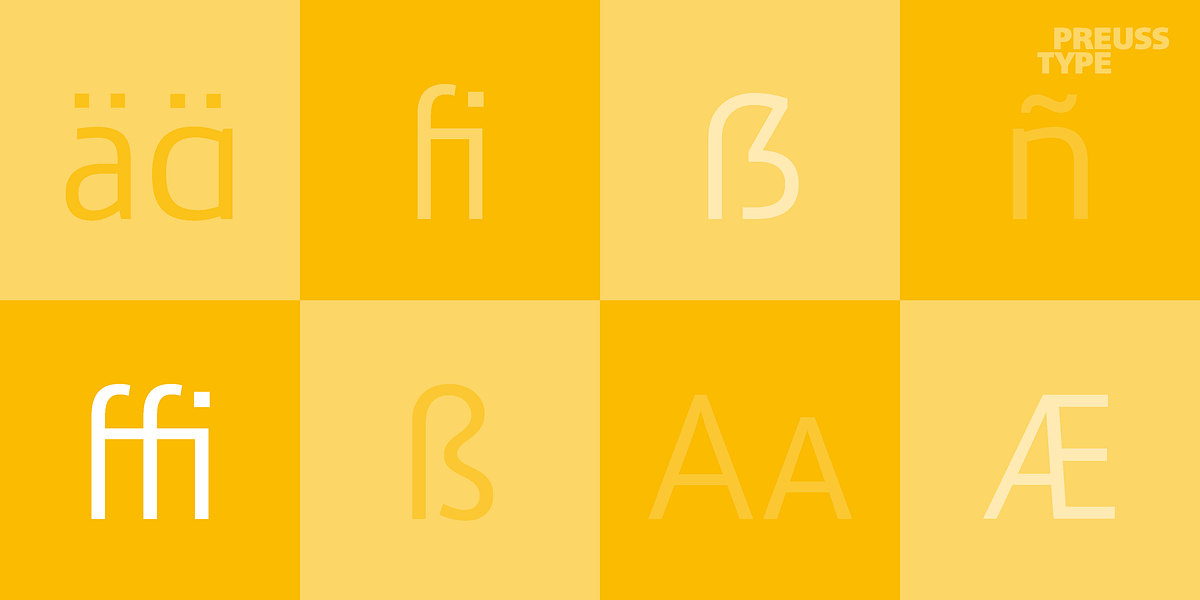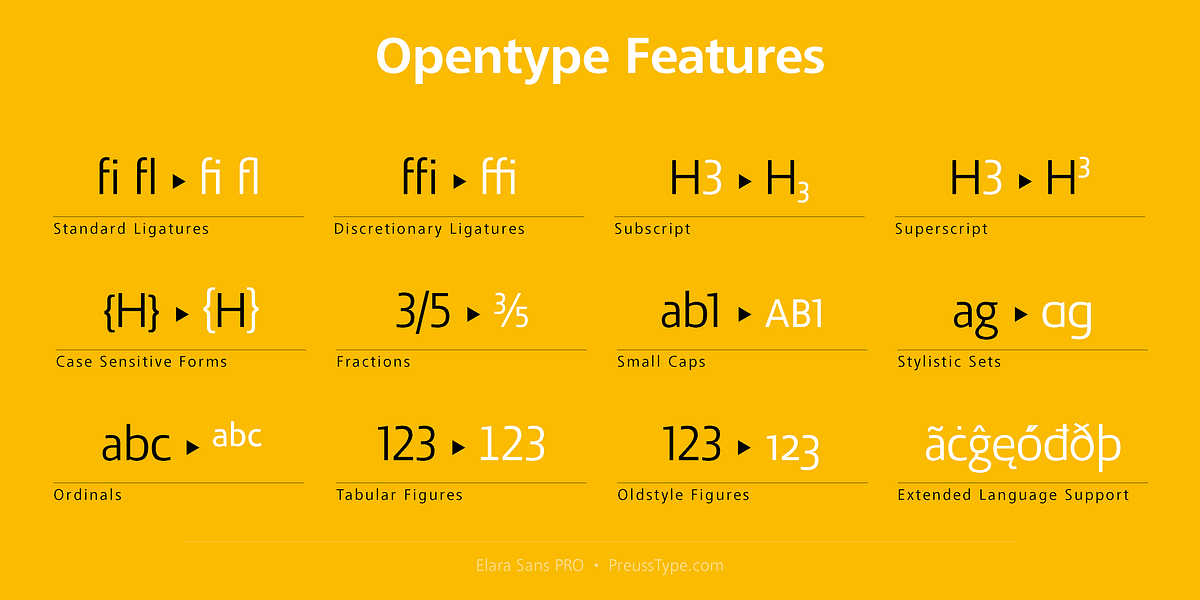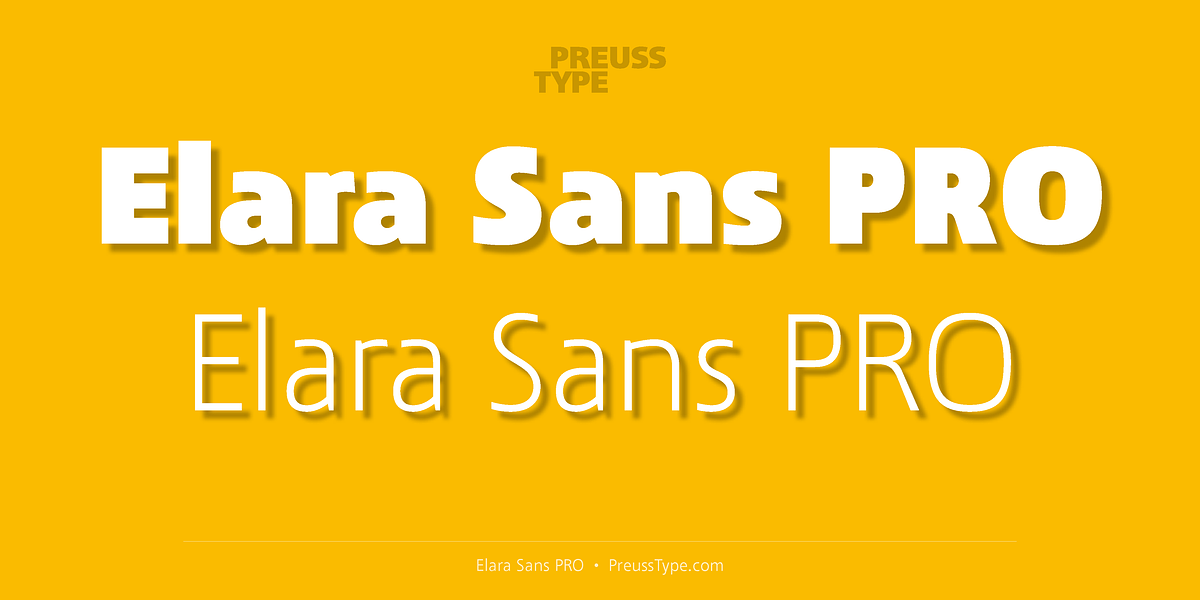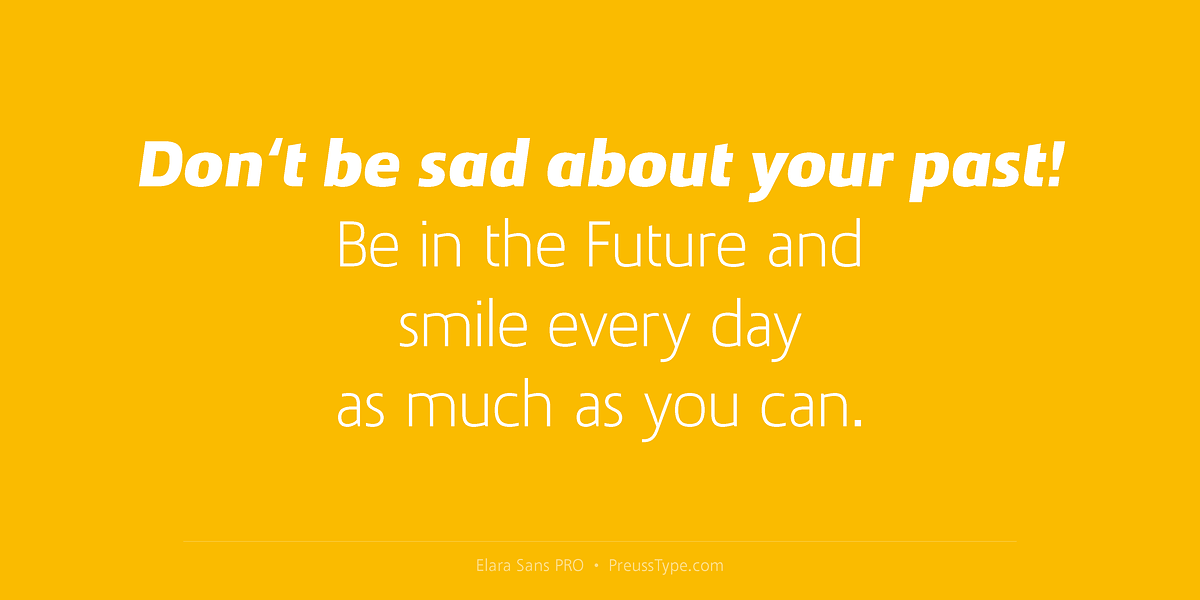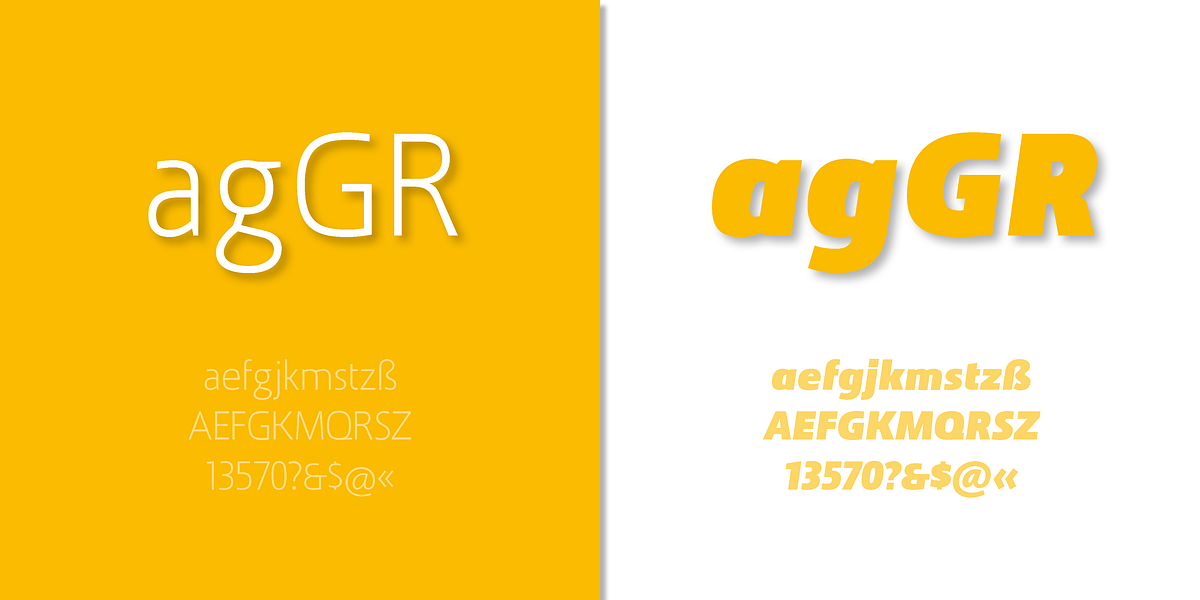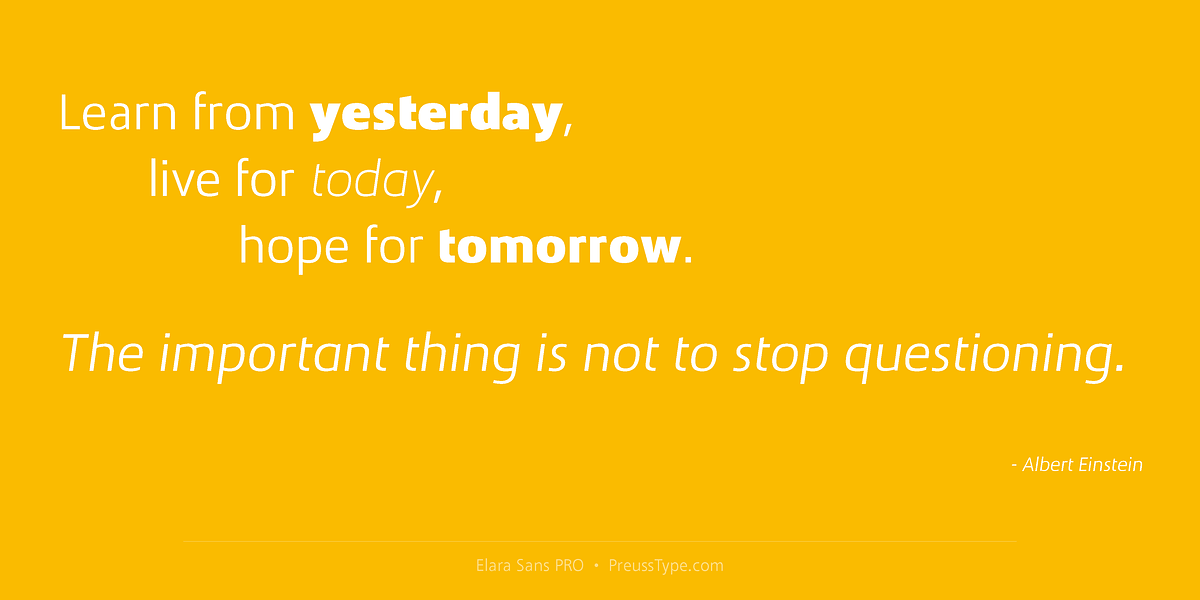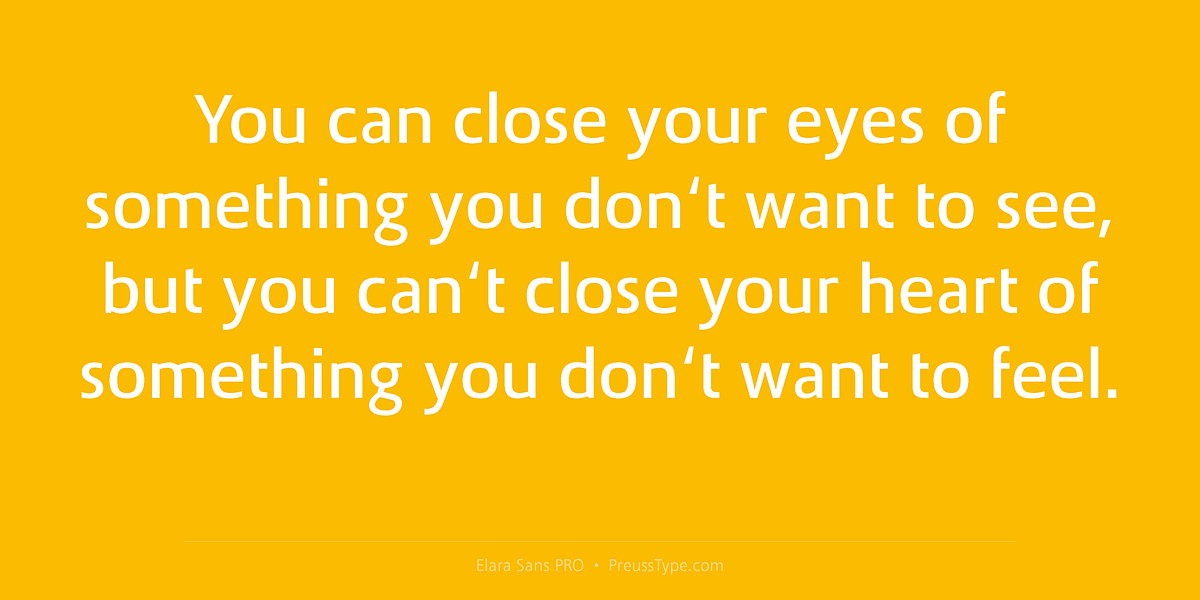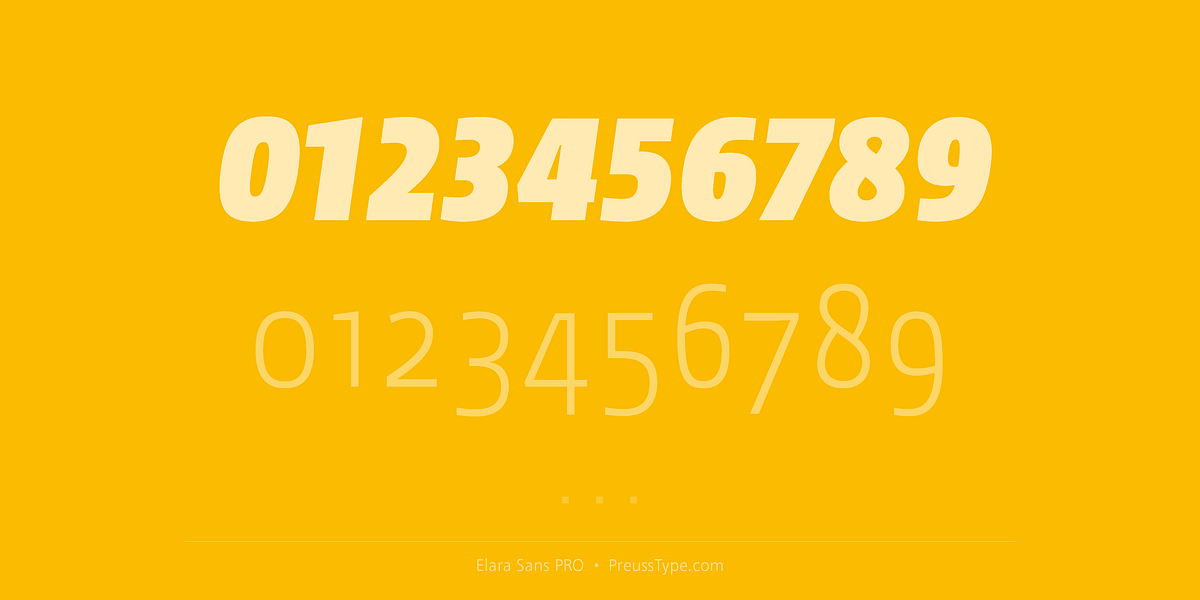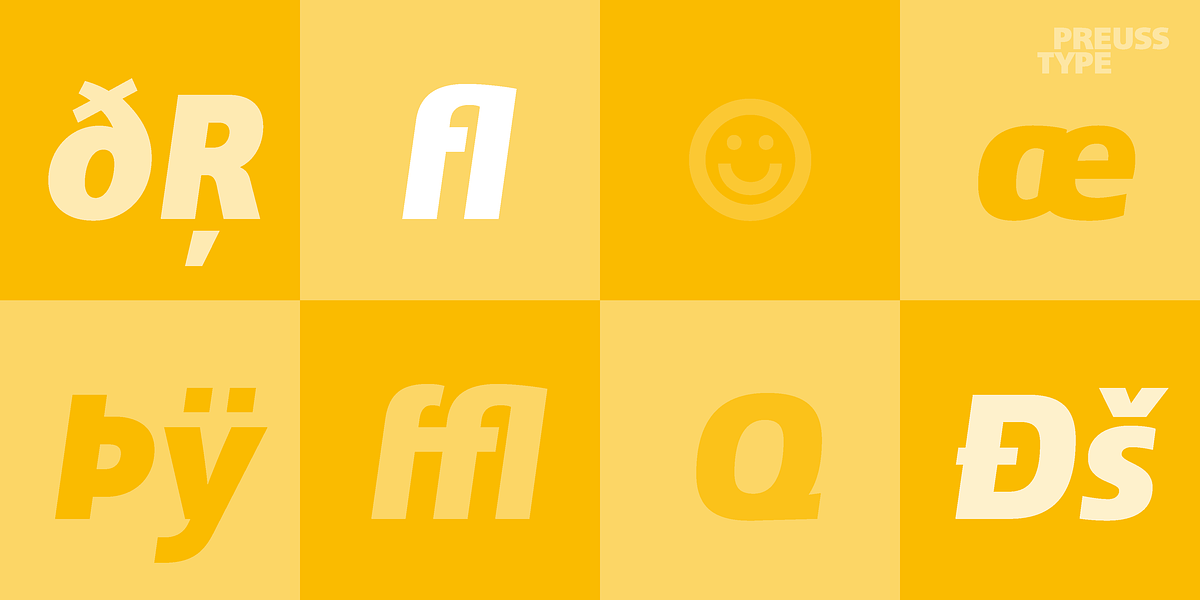
Elara Sans PRO
Elara Sans PRO is a contemporary sans serif font that blends elements of both grotesque and humanist styles. It is designed to be clean, neutral, and friendly, making it suitable for a variety of applications. The italic version maintains similar letter forms with an angle of 10 degrees. OpenType features include case-sensitive punctuation, optically correct superscripts, stylistic alternates, and a full set of small caps in all styles. The extensive character set supports over 100 languages. With weights ranging from extra thin to ultra heavy, Elara Sans PRO is a versatile choice for diverse projects.